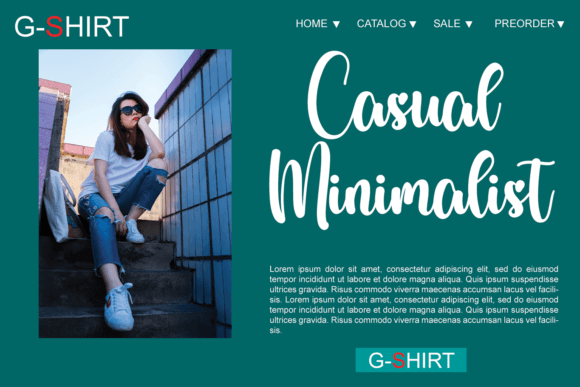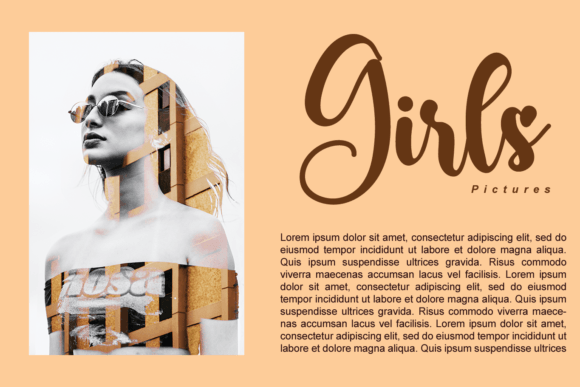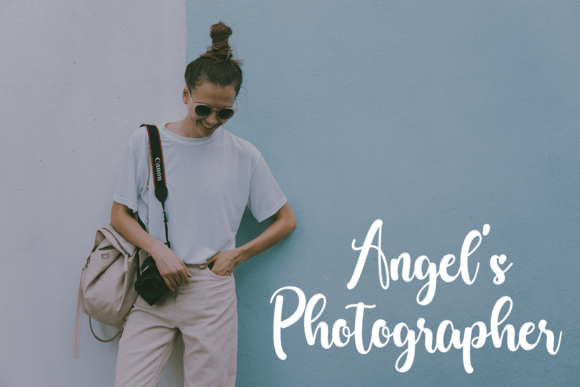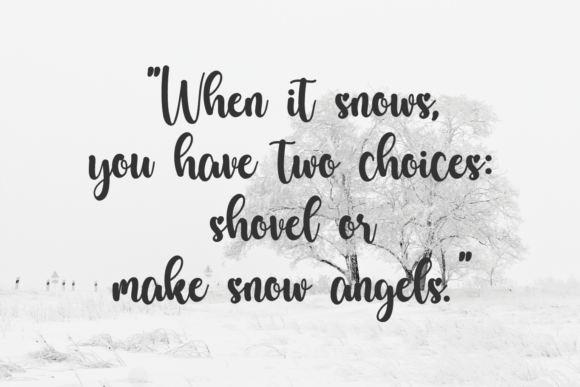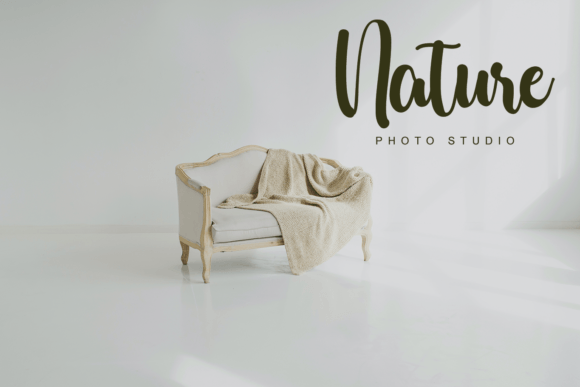
Magic Font
Add a romantic and sweet touch with the Magic font. This calligraphy script features characters that seem to dance along the baseline, adding movement and elegance to your designs. It brings a luxurious spark to any creative project.
The Magic font is perfect for a variety of design needs. Use it for wedding invitations, branding, quotes, logos, greeting cards, and more. Its charming style adds warmth and sophistication to your work.
Each character is carefully crafted with smooth, flowing strokes. This creates a polished and graceful appearance. The font balances artistic flair with readability, making it ideal for headlines, decorative text, and signature designs.
Despite its intricate style, the Magic font remains readable at various sizes. Whether used for bold titles or subtle accents, it adapts beautifully. Its versatility makes it a great choice for many creative projects.
Using this font will help your designs stand out with elegance and romance. If you want your work to feel luxurious and memorable, the Magic font is an excellent choice.